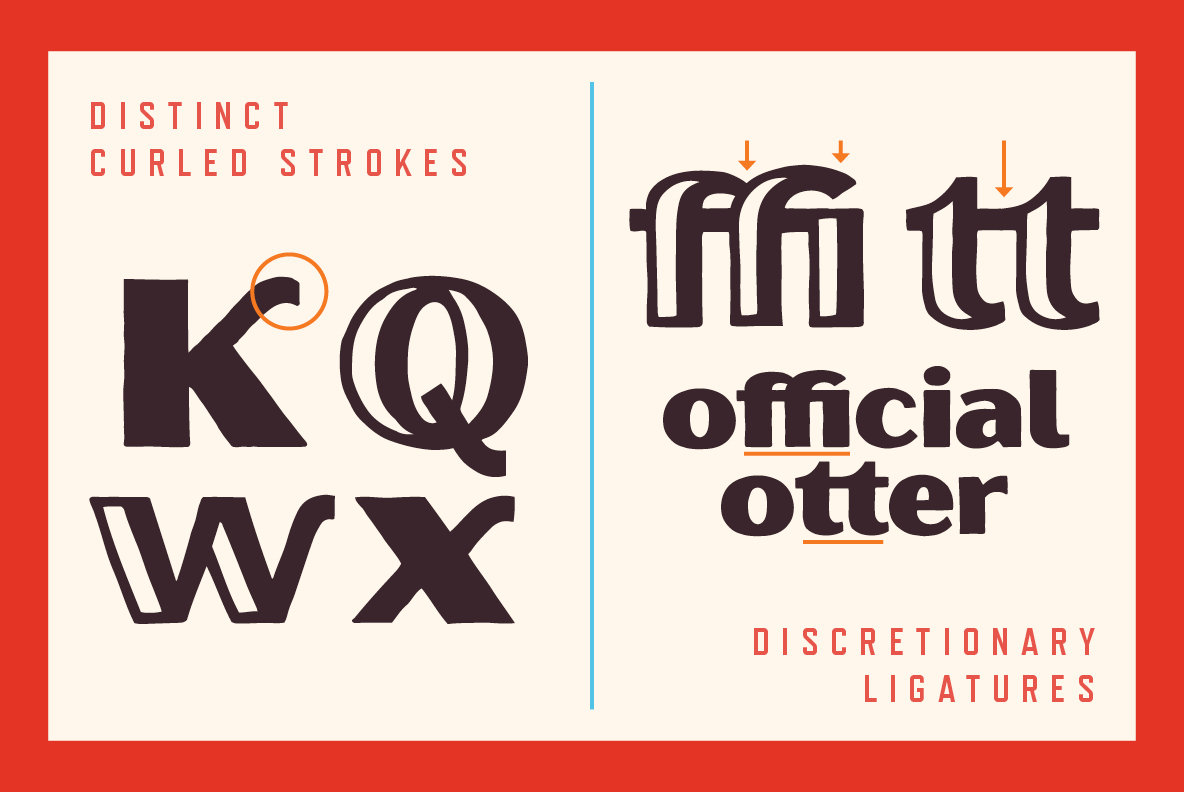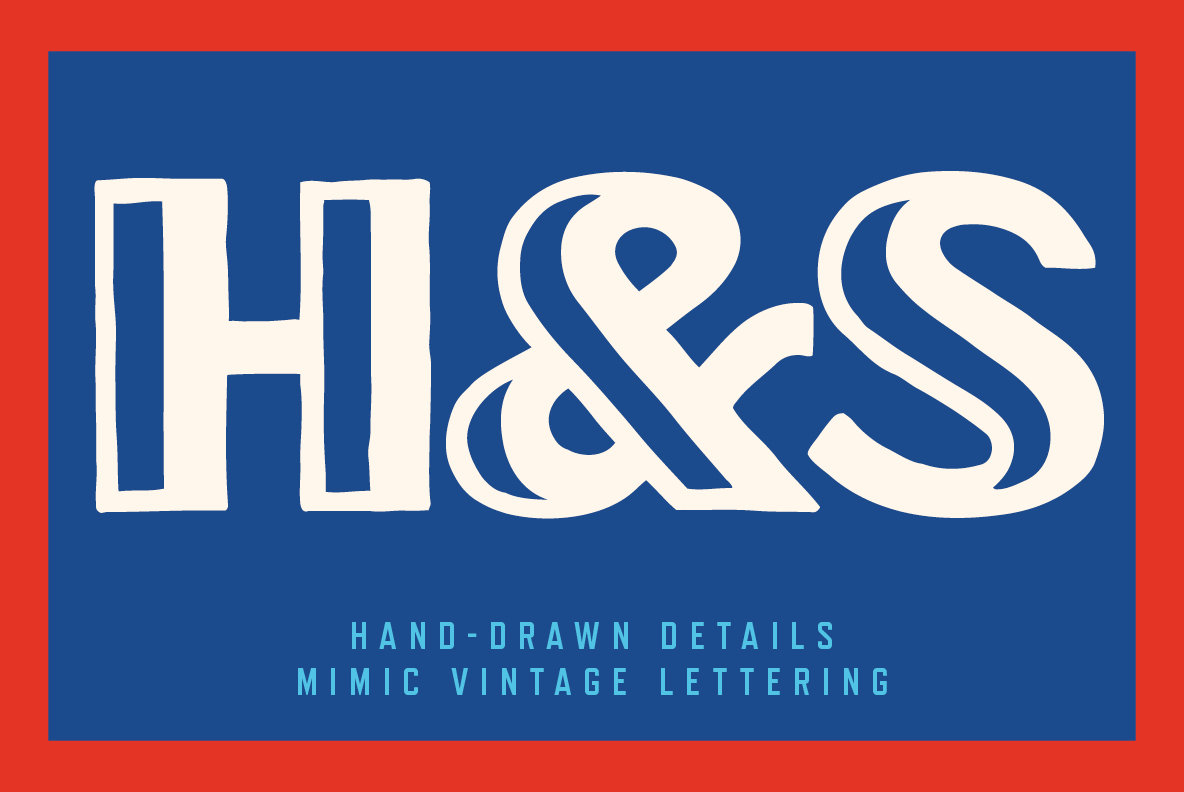
Oilvare Font
Oilvare is a hand-drawn, layered typeface family inspired by vintage painted signs and oil cans. While sturdy, it also has a softer side—wide proportions, oval-inspired forms, curled angle strokes (see characters like the K and V), and a medium contrast all help give it a little bit of distinction from the typical sans serif genre.
Mix, match, and layer the styles to your aesthetic liking. The separate highlight and shadow options really help the typeface come alive when colors are used with the solid styles—or choose the individual styles with these details already added. There are also “rough” options for more texture.
Carefully drawn, when you enlarge the typefaces, the subtle irregularities become more apparent and harken to hand lettering of the past. Oilvare also includes a few discretionary ligatures that you can turn on or off in Open Type savvy programs.